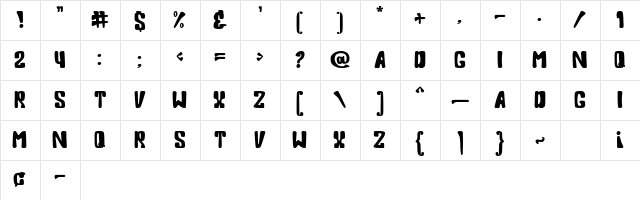
Dance Kitty Regular
| Designer | (SiPanji). 2020 |
Design Context for Dance Kitty Typeface
Dance Kitty is a composed and adaptable typeface that performs quietly and consistently across a wide range of design contexts.